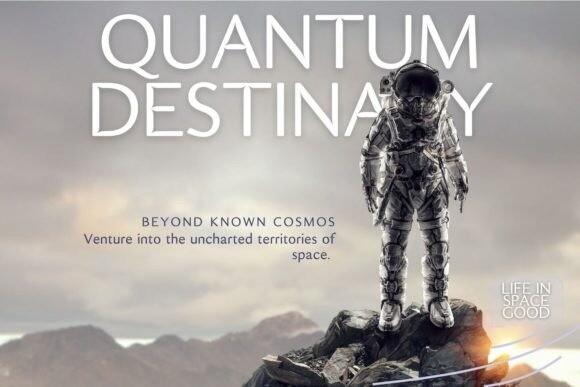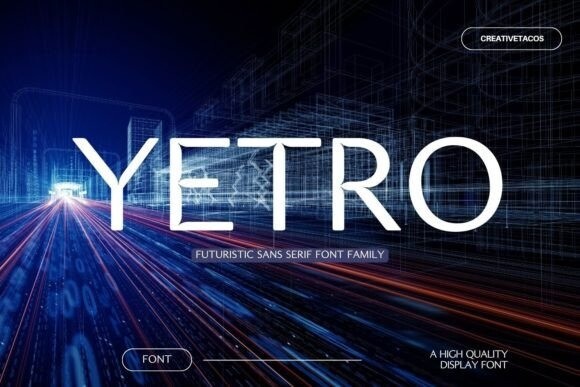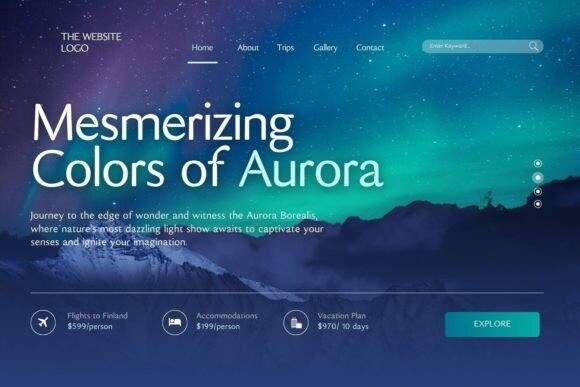
Yetro Font
Yetro Futuristic Display Font is a bold and modern font that captures the essence of cutting-edge design. It’s perfect for projects that need a strong, futuristic look, whether you’re designing logos, posters, or headlines. The font’s clean, sharp edges make it stand out, adding a sleek and sophisticated touch to your work.
Yetro is a powerful display font, ideal for anyone looking to infuse a modern, futuristic style into their designs.